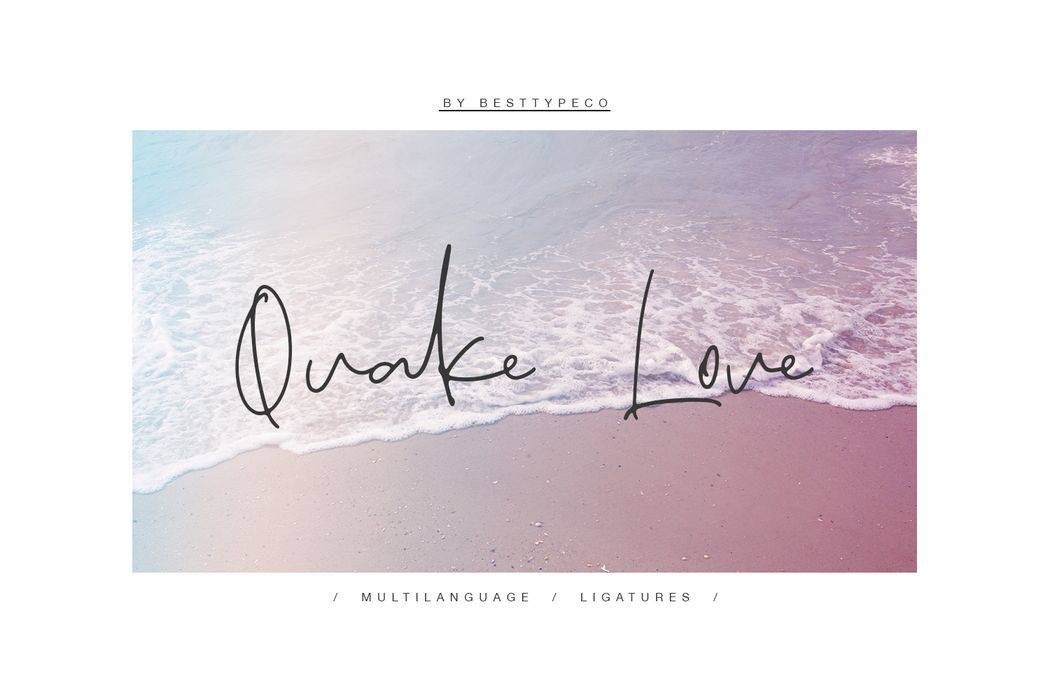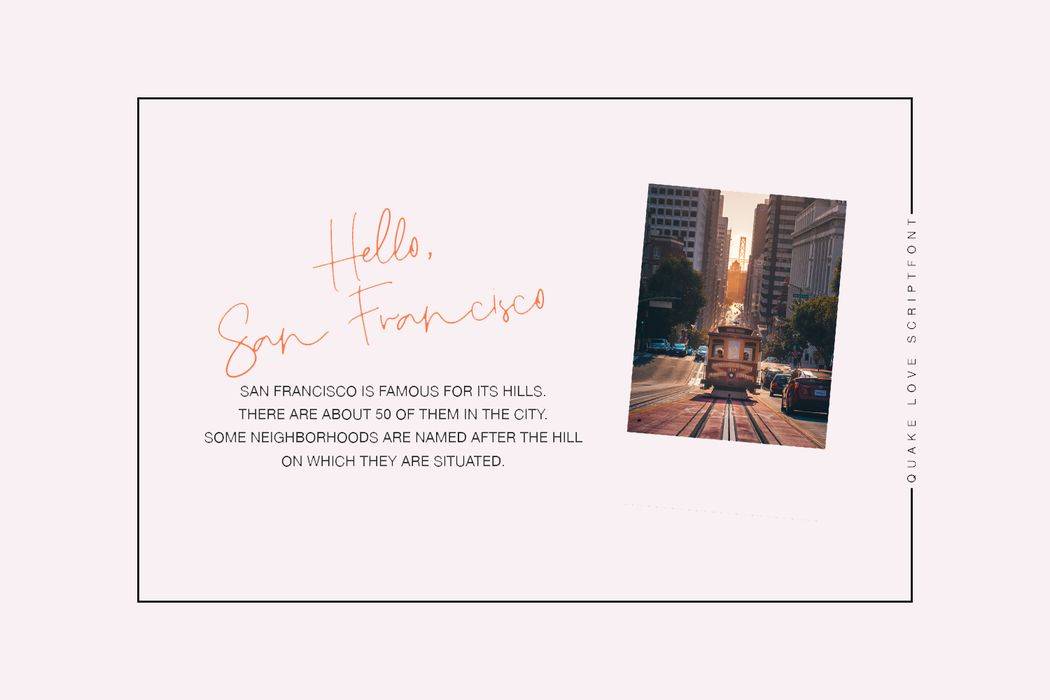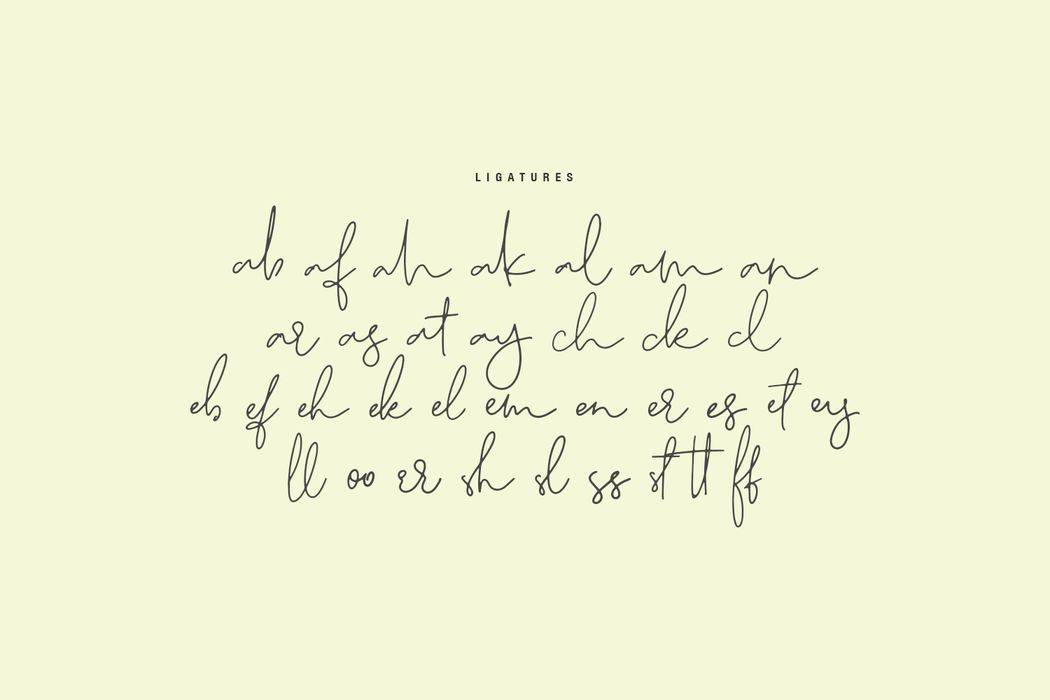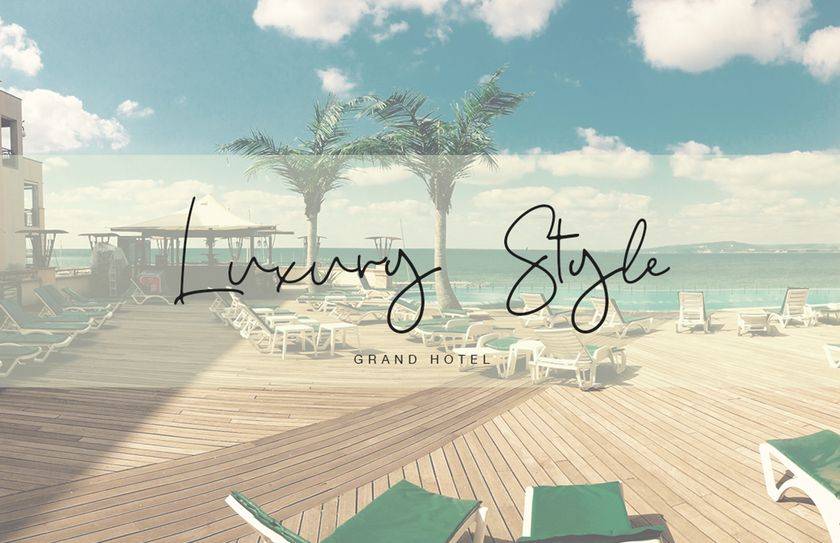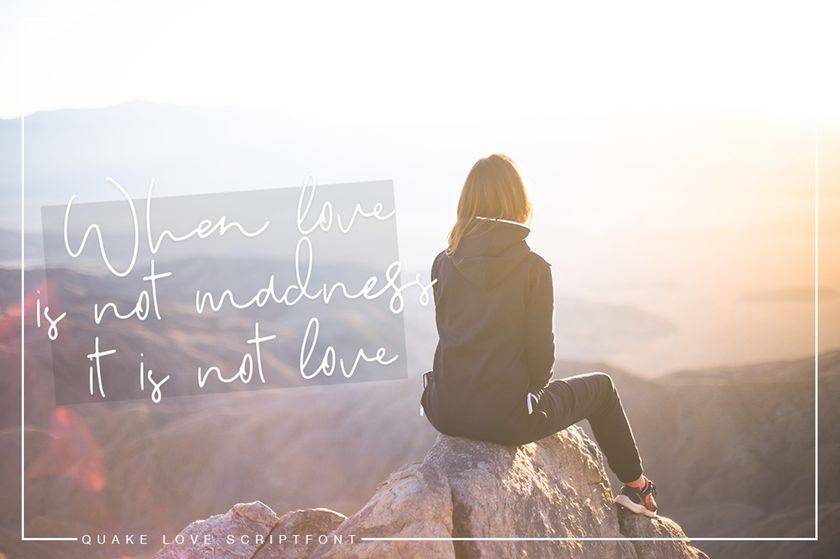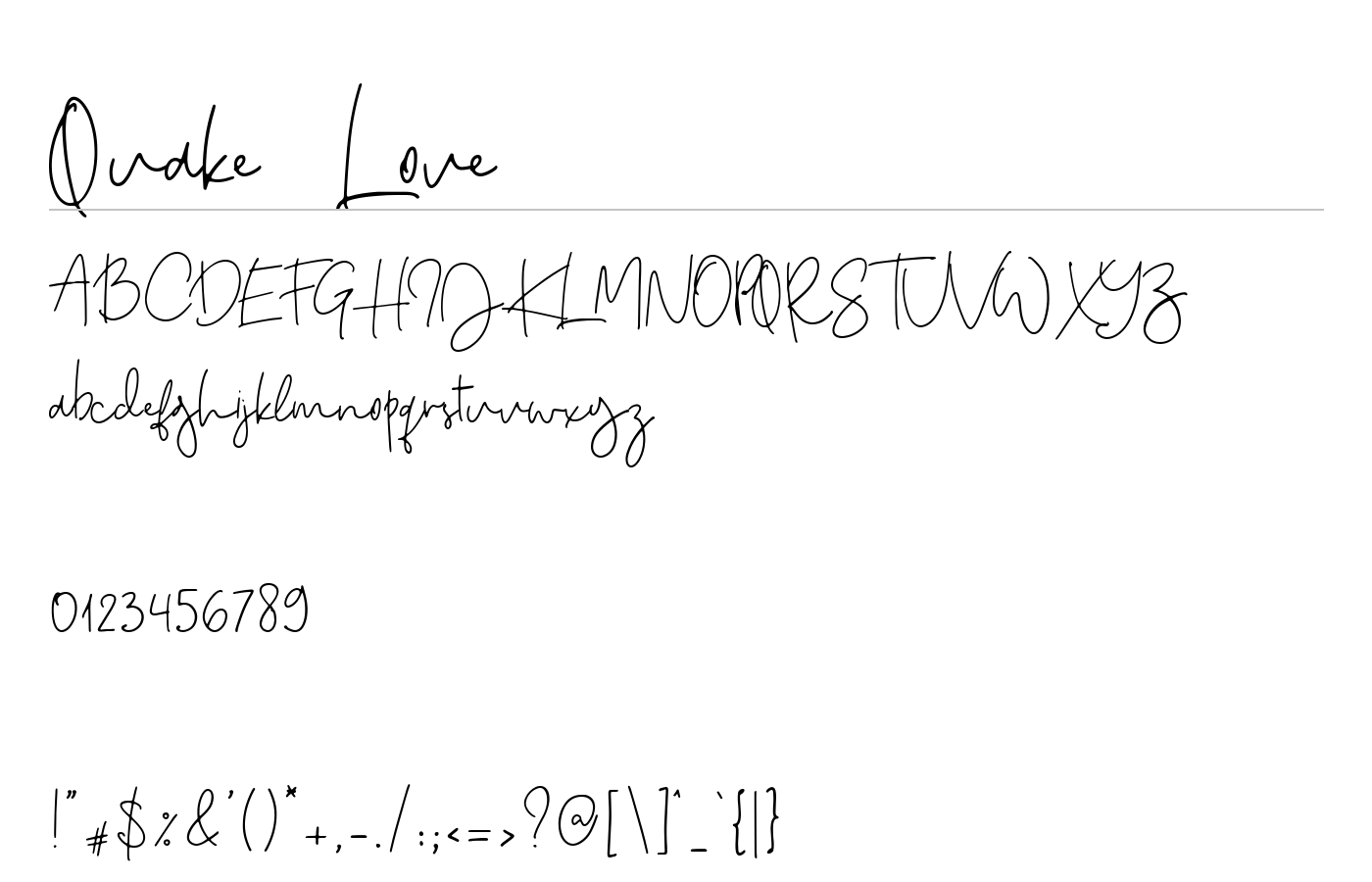
Quake Love is a delicate, handwritten script font that features tall, narrow letterforms with a quirky, casual flair. Its thin strokes and airy spacing create an intimate, personal feel, making it perfect for creative projects that want to evoke warmth and individuality, such as invitations, branding, and lifestyle blogs. This font works best in headlines and decorative use where its unique character can truly stand out.
Quake Love Font
About Quake Love Font
| Font family | Quake Love Font |
| Designer | besttypeco |